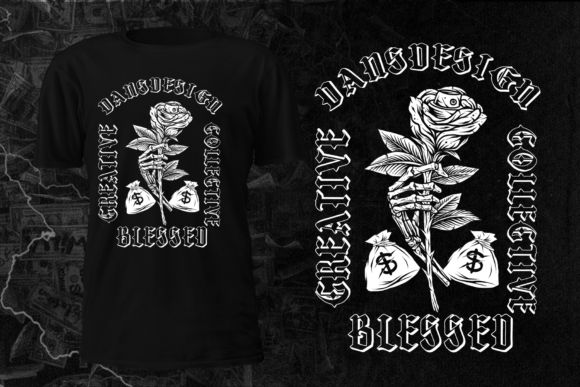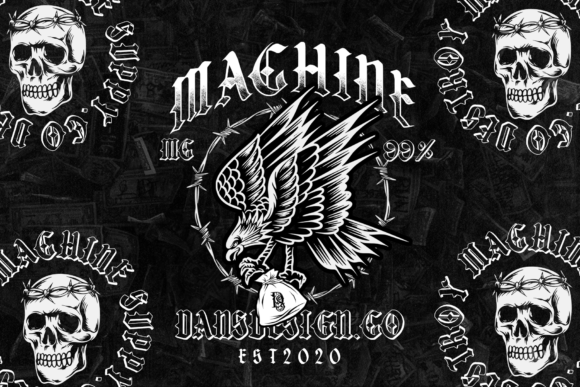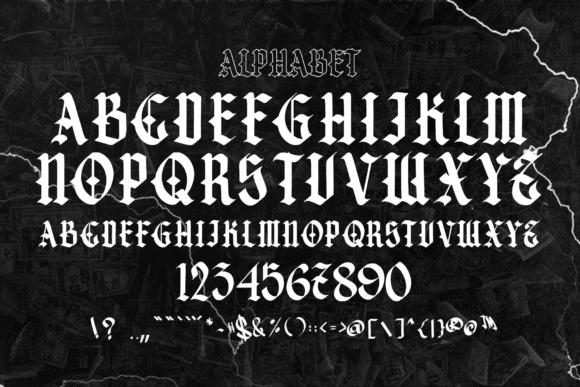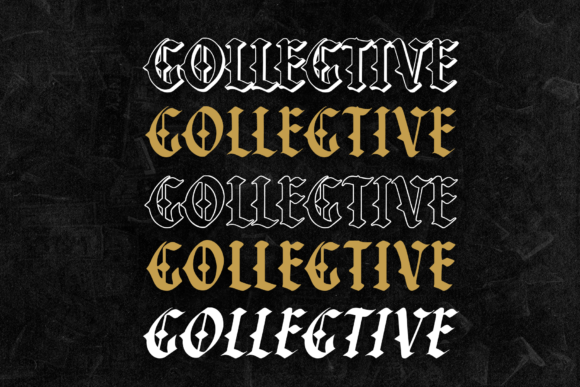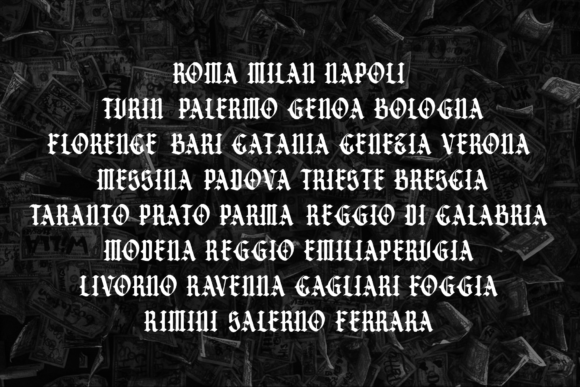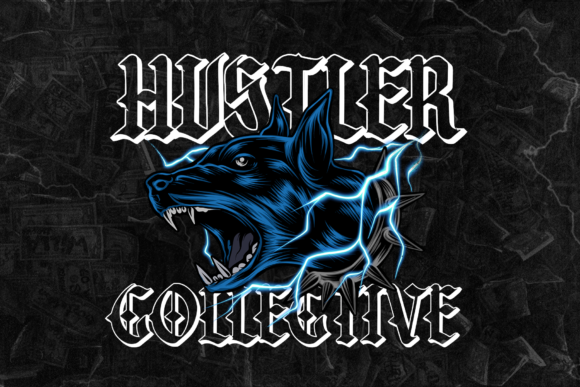
Introduction to Sicarios Font Font
Fonts play a crucial role in design, and the Sicarios Font font is a typeface that brings both character and versatility to any project. Whether you’re working on a branding project, a website, or a print design, the Sicarios Font font offers a unique style that can elevate your work.
Sicarios is an authentic and assertive blackletter font.
This font is ideal for writing web designs, business cards, or pretty much anything else that requires a bold, distinct touch .
Key Features of Sicarios Font Font
Why Choose Sicarios Font Font?
The Sicarios Font font is more than just a typeface – it’s a design tool that helps you communicate your message with style and clarity. Its unique character set and versatile design make it suitable for a wide range of applications, from elegant invitations to bold headlines.
With its carefully crafted letterforms and balanced proportions, the Sicarios Font font ensures readability and visual appeal across all mediums.
What makes Sicarios Font font special?
The Sicarios Font font stands out with its unique design, exceptional readability, and versatility across various design applications.